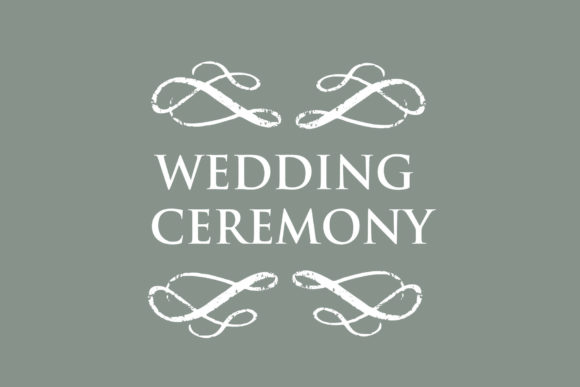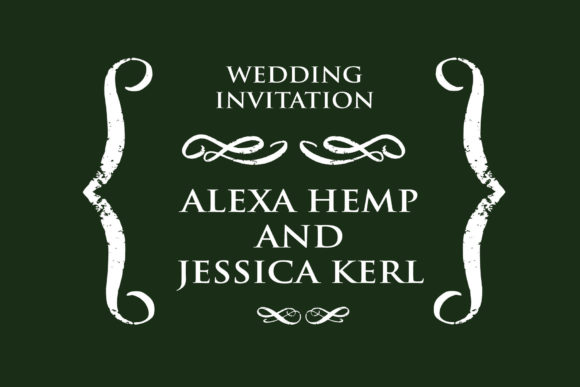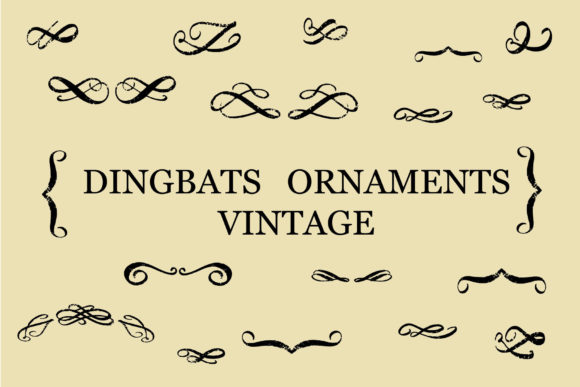
Dingbats Ornaments Vintage Font: Elevate Your Designs with Timeless Elegance
In the world of design, fonts play a crucial role in conveying the tone and aesthetic of a project. For designers and crafters looking to add a touch of vintage charm to their creations, Dingbats Ornaments Vintage font is an invaluable resource. This incredibly useful dingbats font can be seamlessly integrated into a variety of designs, both formal and informal, and is sure to elevate your projects with its timeless elegance.
What are Dingbats?
For those unfamiliar with the term, dingbats are a type of font that features symbols, ornaments, and decorative elements rather than traditional letters and numbers. These fonts are often used to add visual interest and personality to designs, and can be found in a wide range of styles, from playful and whimsical to elegant and sophisticated.
The Charm of Dingbats Ornaments Vintage Font
Dingbats Ornaments Vintage font stands out from the crowd with its unique blend of classic and vintage elements. The font features a beautiful collection of ornaments, including intricate floral patterns, elegant borders, and delicate motifs, all with a distinctly retro feel. Whether you’re working on a formal project, such as a wedding invitation or a luxury brand logo, or a more informal design, like a greeting card or a social media graphic, Dingbats Ornaments Vintage font is sure to add a touch of sophistication and refinement.
Key Features of Dingbats Ornaments Vintage Font
- Extensive character set: The font includes a wide range of ornaments and symbols, giving you plenty of options to choose from.
- Vintage charm: The font’s classic, retro aesthetic makes it perfect for designs that require a touch of nostalgia and elegance.
- Scalability: The font is highly scalable, making it suitable for use in a variety of design applications, from business cards to billboards.
Design Applications for Dingbats Ornaments Vintage Font
The versatility of Dingbats Ornaments Vintage font makes it suitable for a wide range of design applications, including:
- Stationery and invitations: Add a touch of elegance to your wedding invitations, greeting cards, and other stationery with this beautiful font.
- Branding and logos: Use Dingbats Ornaments Vintage font to create a unique and memorable logo for your business or brand.
- Social media graphics: Elevate your social media presence with eye-catching graphics featuring this stunning font.
- Crafting and DIY projects: Add a personal touch to your crafting and DIY projects, such as scrapbooking, card making, and more.
Tips for Using Dingbats Ornaments Vintage Font
To get the most out of Dingbats Ornaments Vintage font, here are a few tips to keep in mind:
- Experiment with different sizes: The font looks great at a variety of sizes, so don’t be afraid to experiment to find the perfect fit for your design.
- Combine with other fonts: Pair Dingbats Ornaments Vintage font with other fonts to create a unique and visually appealing combination.
- Use as a design element: Use the font as a design element, rather than as a primary text font, to add visual interest to your design.
Dingbats Ornaments Vintage font is a valuable resource for designers and crafters looking to add a touch of vintage charm to their creations. With its extensive character set, scalability, and ease of use, this font is perfect for a wide range of design applications. Whether you’re working on a formal or informal project, Dingbats Ornaments Vintage font is sure to elevate your designs with its timeless elegance.